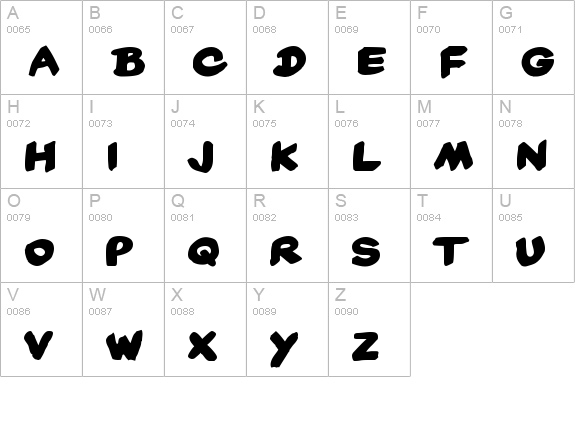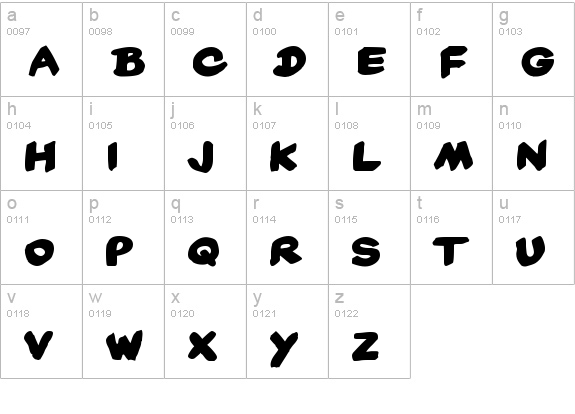
Yard Sale Font Details
Introducing Yard Sale font - a quirky and energetic typeface that will add a touch of whimsy to your designs. With its playful style and hand-drawn appearance, Yard Sale font is perfect for projects that call for a fun and casual look. But that's not all - Yard Sale font is also versatile and easy to read, making it suitable for a wide range of design applications. Whether you're creating greeting cards, posters, or social media graphics, this font is sure to make your text stand out. And the best part? Yard Sale font is completely free to download at FontsMarket.com. Yes, you read that right - you can get your hands on this charming font at no cost at all. So why wait? Add a touch of whimsy to your designs today with Yard Sale font!